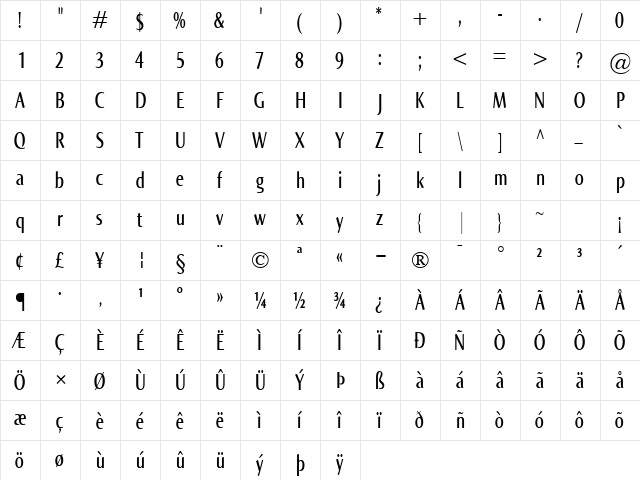
Norma Compr Regular
Design Context for Norma Compr Typeface
Norma Compr offers clean, dependable letterforms without strong stylistic allegiance, making it a practical choice for designers who need flexibility.